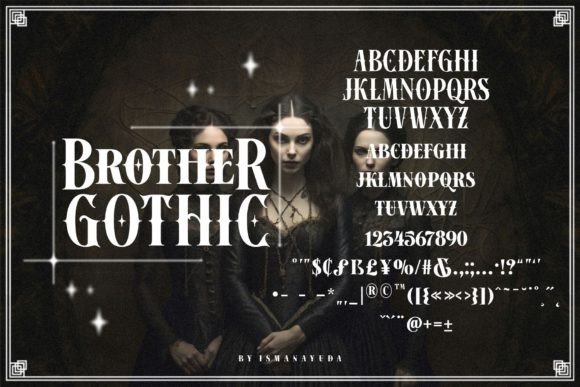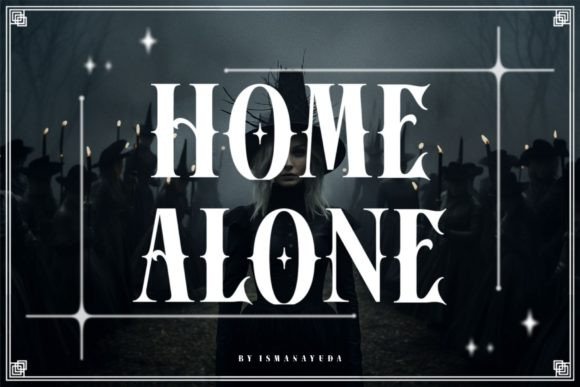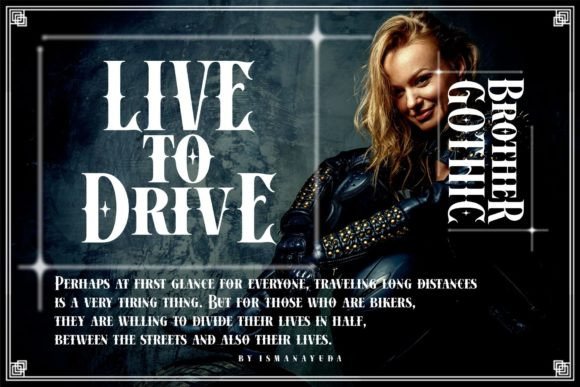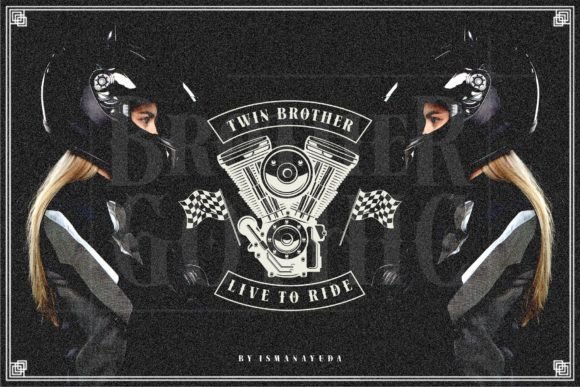
Meet the Rebel of Typography: Brother Gothic Font
Have you ever been on a midnight drive, cruising through the city with the wind in your hair, the music blasting, and the road stretching out before you? It’s moments like these that spark creativity and fuel our passion for design. And it’s exactly this kind of inspiration that led us to create the Brother Gothic Font.
This bold and striking font is a fusion of Victorian elegance and rebellious gothic charm, making it perfect for designers who want to add a touch of edge to their work. With its unique style, the Brother Gothic Font can be used in a wide range of applications, from posters and flyers to websites and social media graphics. Whether you’re a seasoned pro or just starting out, this font is sure to become a trusted companion in your design journey.
- Unique Characteristics: Distinctive gothic style with sharp lines, geometric shapes, and a robust feel
Brother Gothic Font Review
As a designer, I recently had the chance to work with the Brother Gothic font, and I must say it has its strengths and weaknesses.
- Unique aesthetic: Brother Gothic has a distinct, edgy look that can add a touch of sophistication to any design.
- Good legibility: Despite its Gothic style, the font is relatively easy to read, making it suitable for body text.
- Wide character set: The font includes a comprehensive set of characters, including punctuation, numerals, and symbols.
- Limited expressiveness: While Brother Gothic has a unique look, it may not be suitable for designs that require a lot of nuance or subtlety.
- Not ideal for small text: The font’s bold strokes can make it difficult to read in small sizes, so it’s best to use it for larger headings and titles.
Overall impression
The Brother Gothic font is a solid choice for designs that require a bold, edgy look. While it may not be the most versatile font, it’s well-suited for specific applications and can add a unique touch to your work. With its good legibility and comprehensive character set, it’s definitely worth considering for your next project.
The Brother Gothic Font is ideal for creating a vintage, distressed look in your designs. Use it for:
– Retro-themed posters and flyers
– Grunge-inspired graphics
– Distressed text overlays for photos
– Vintage-style invitations and cards
Experiment with different font sizes, styles, and colors to achieve the desired effect.
– Use the font in combination with other distressed or vintage fonts for a unique look.
– Apply the font to images with a distressed or worn effect for added visual interest.